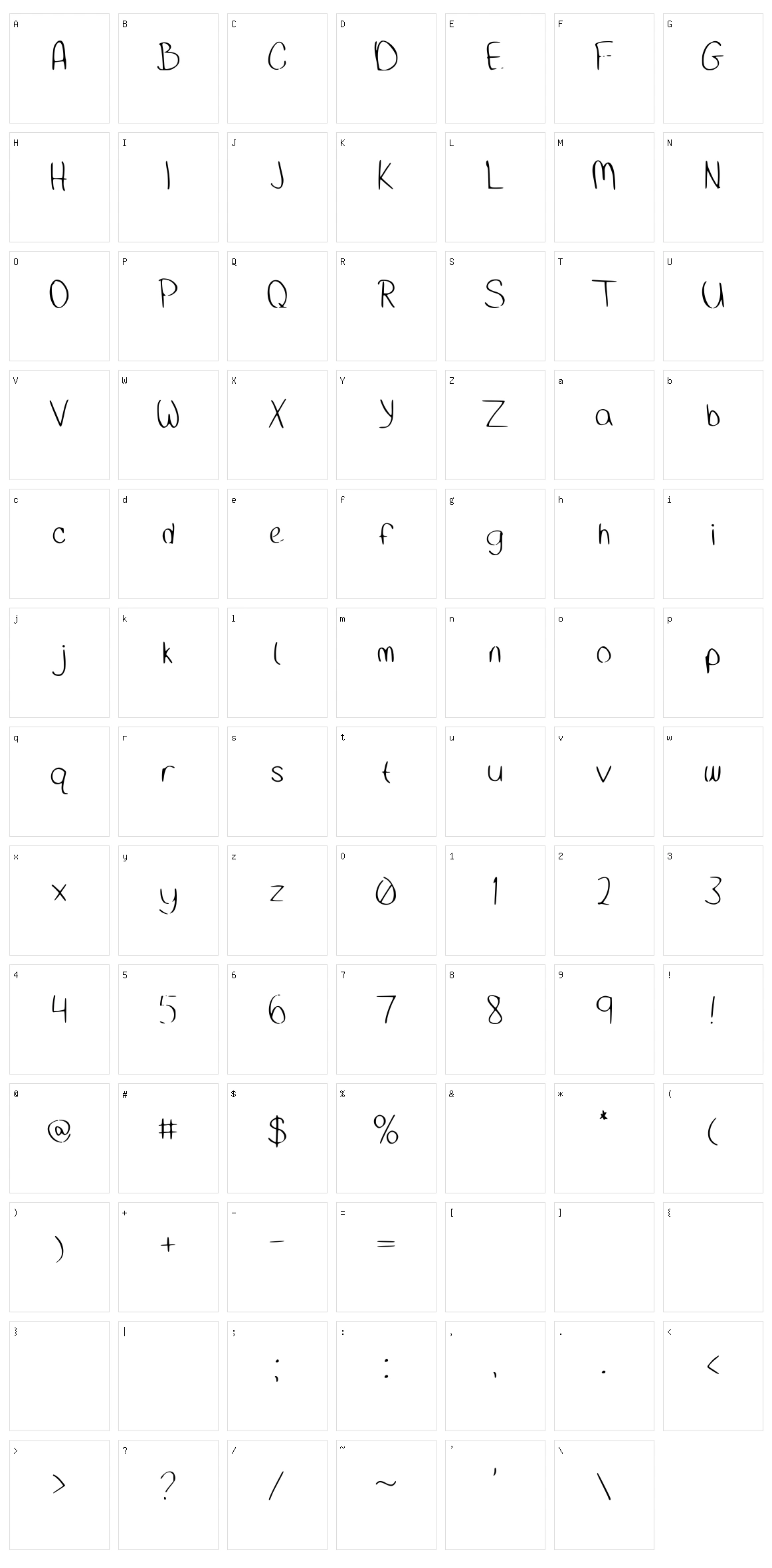
The free font Clean Hand is carefully designed by Alyssa Krogstad, showcasing a thoughtful balance of creativity and usability and falls under the Script font style. When you download the ZIP file, it contains only 11.19 KB of font files, making it lightweight and quick to download. Please review the license details below to understand permitted usage and distribution rights. If license information is not available, we recommend using this font for personal projects only or contacting the author directly for commercial usage permissions.